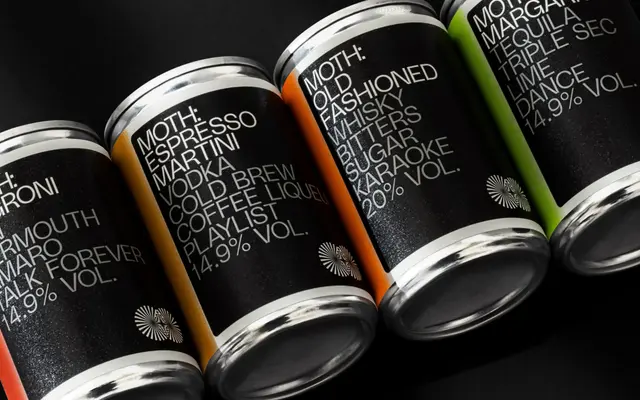
PolySans
A grotesque sans with soft inktraps and wilfully exaggerated italics, available across proportional, monospaced and wide cuts with Arabic and Hebrew extensions.
Built on mid-20th-century grotesque proportions, PolySans introduces soft-edged inktraps that quietly disrupt an otherwise steady rhythm. The italics take a different path entirely, stretching and exaggerating to the point of resembling a script serif before pulling back. Six weights run across Latin, Vietnamese, Cyrillic, Greek, Arabic and Hebrew, each script given equal design attention rather than treated as an afterthought.
A mid-20th-century grotesque with soft-edged inktraps and exaggerated italics that flirt with script forms. The upright cuts maintain classic grotesque proportions while the italics stretch beyond typical oblique conventions.